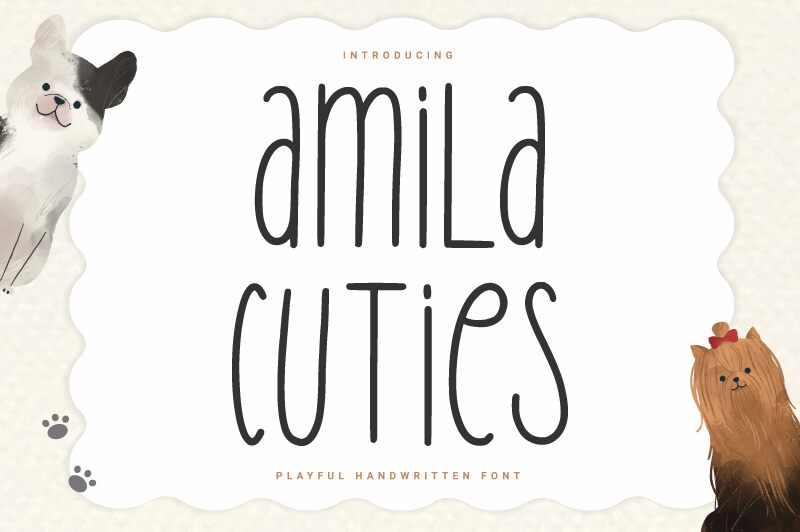
Introducing Amila Cuties, the playful handwritten font that will add a touch of whimsy to any project. Designed by Prio Nurokhim Aji, this font's light weight and condensed width make it perfect for adding a fun flair to any design – from invitations to posters and everything in between. Whether you're looking to create an eye-catching logo or add some personality to your social media posts, Amila Cuties has got you covered. Let your creativity run wild with this charming font that is sure to put a smile on anyone's face!
Amila Cuties